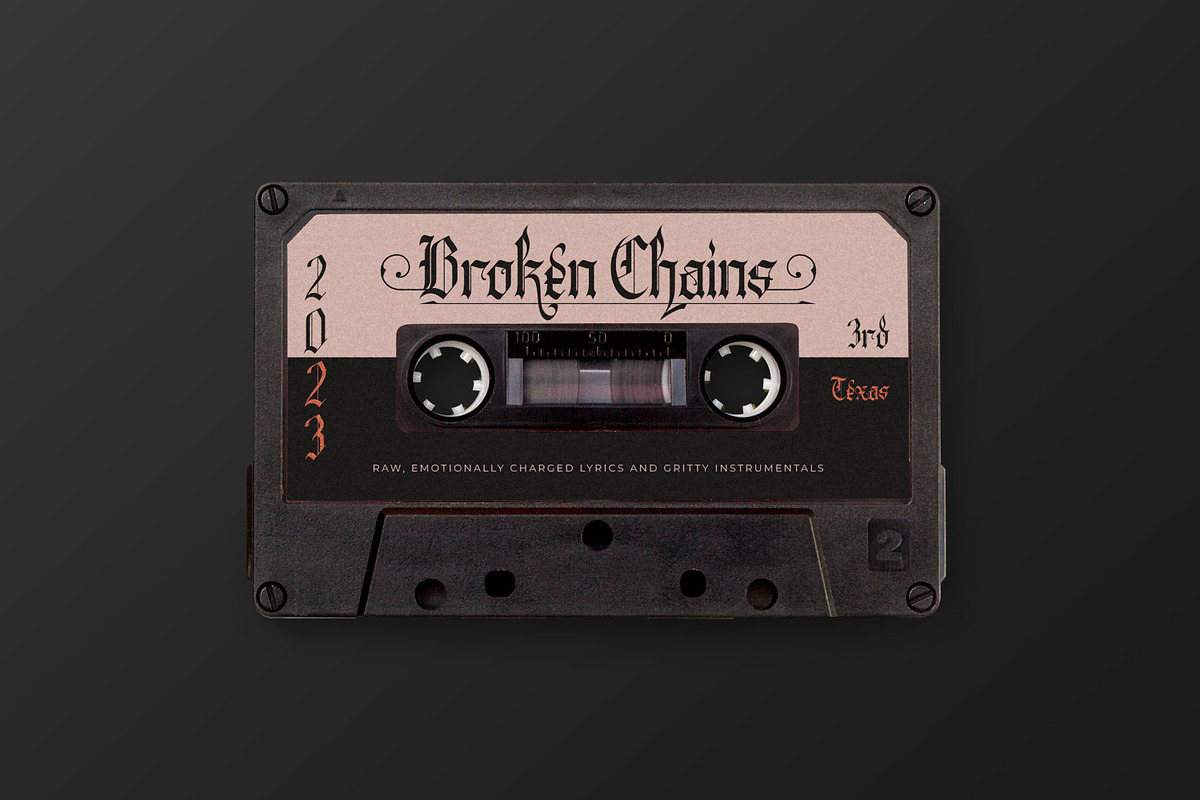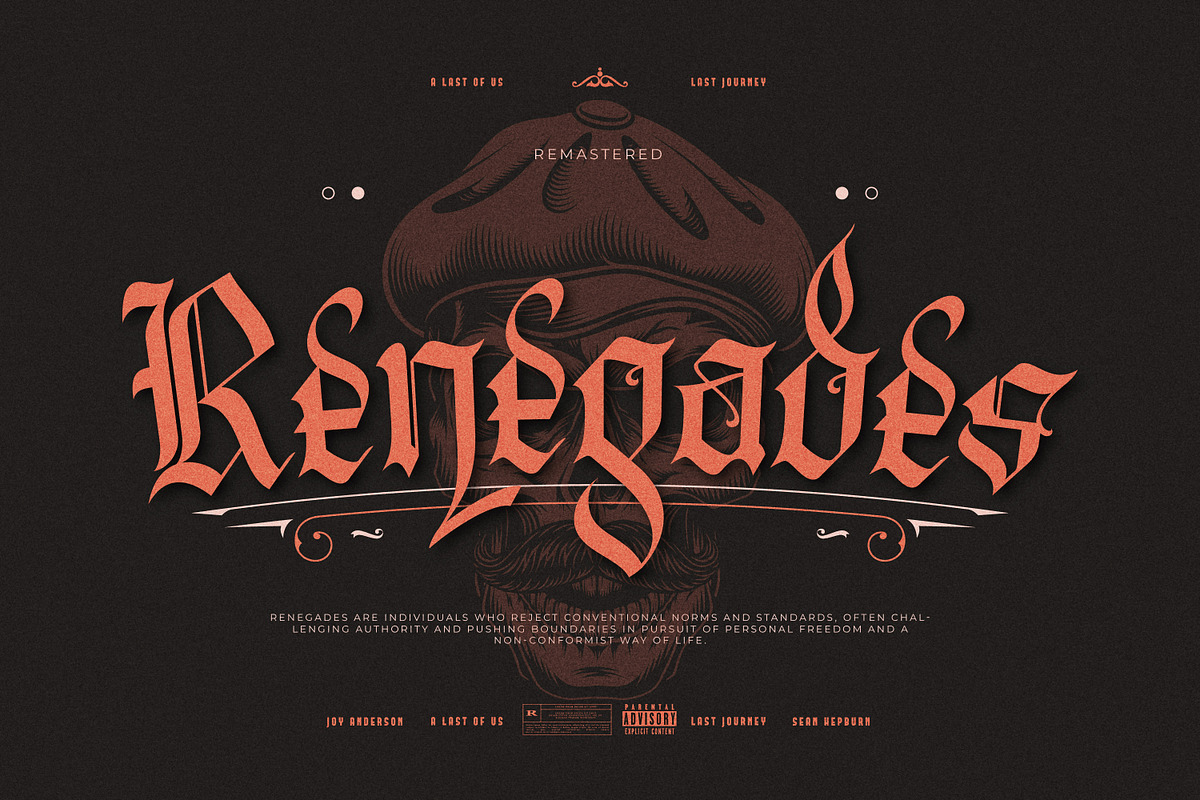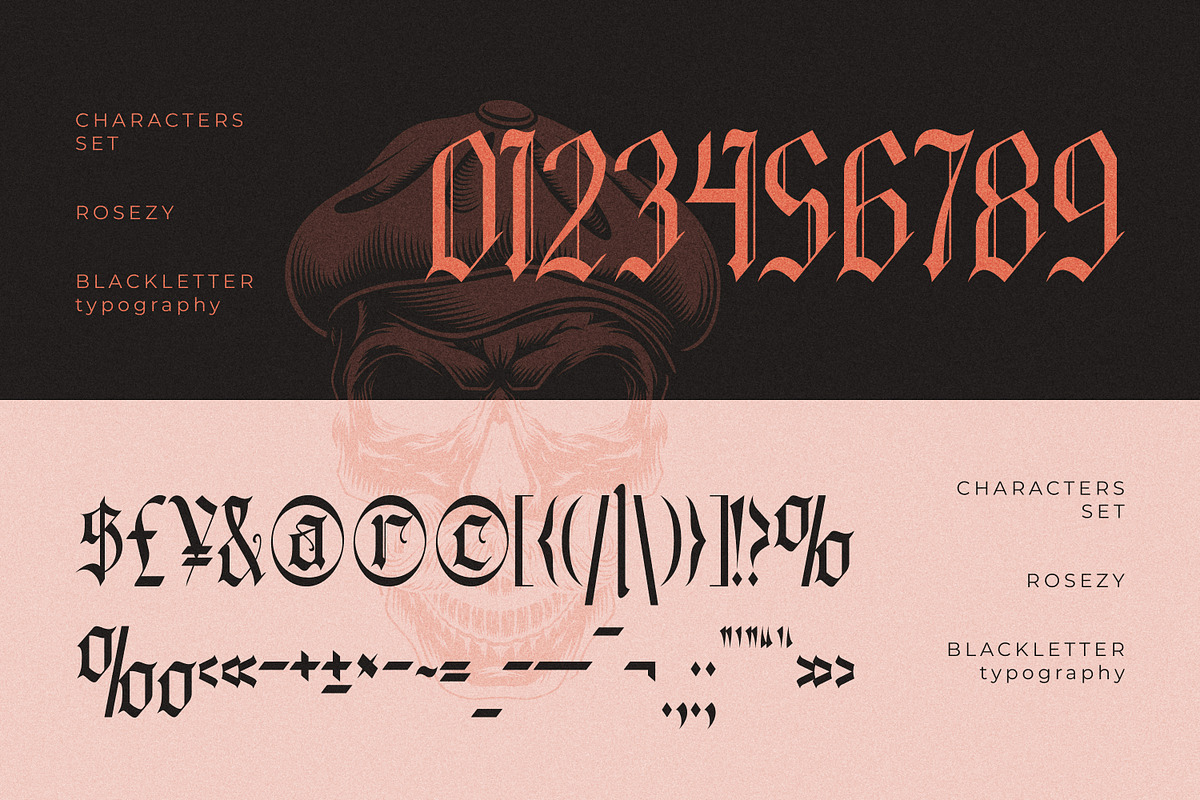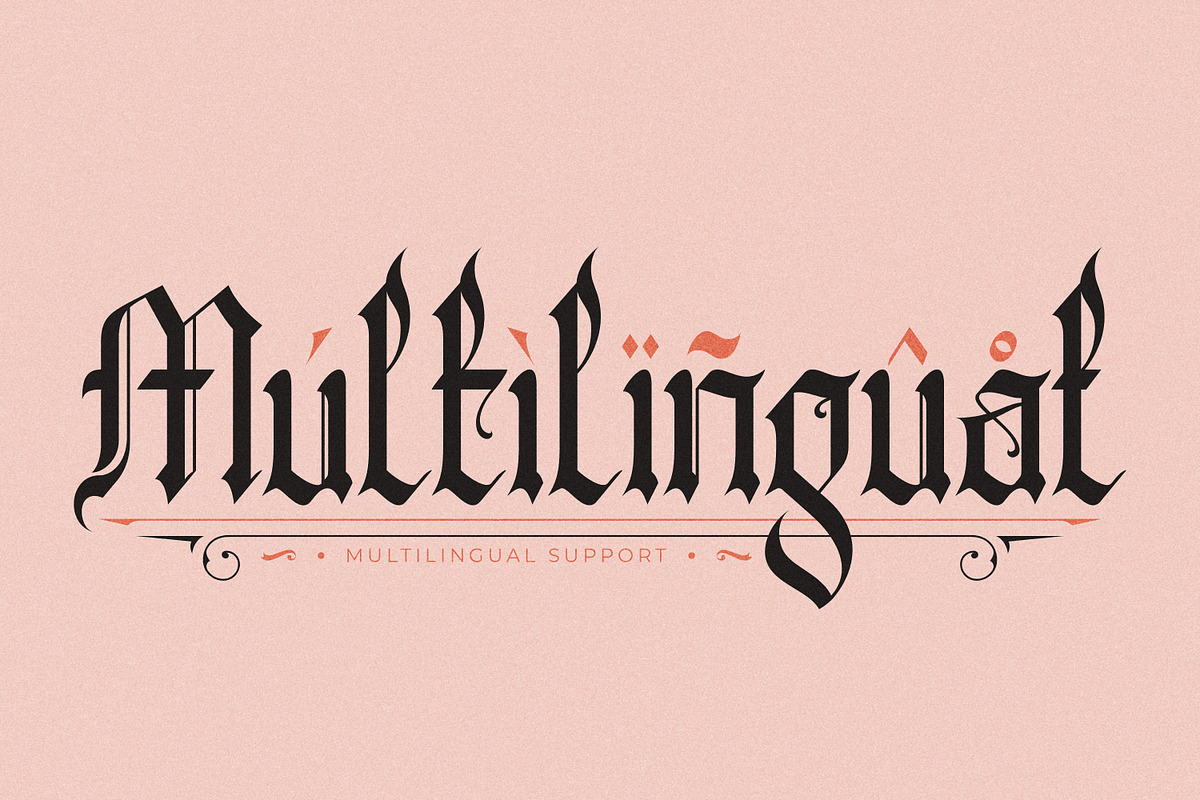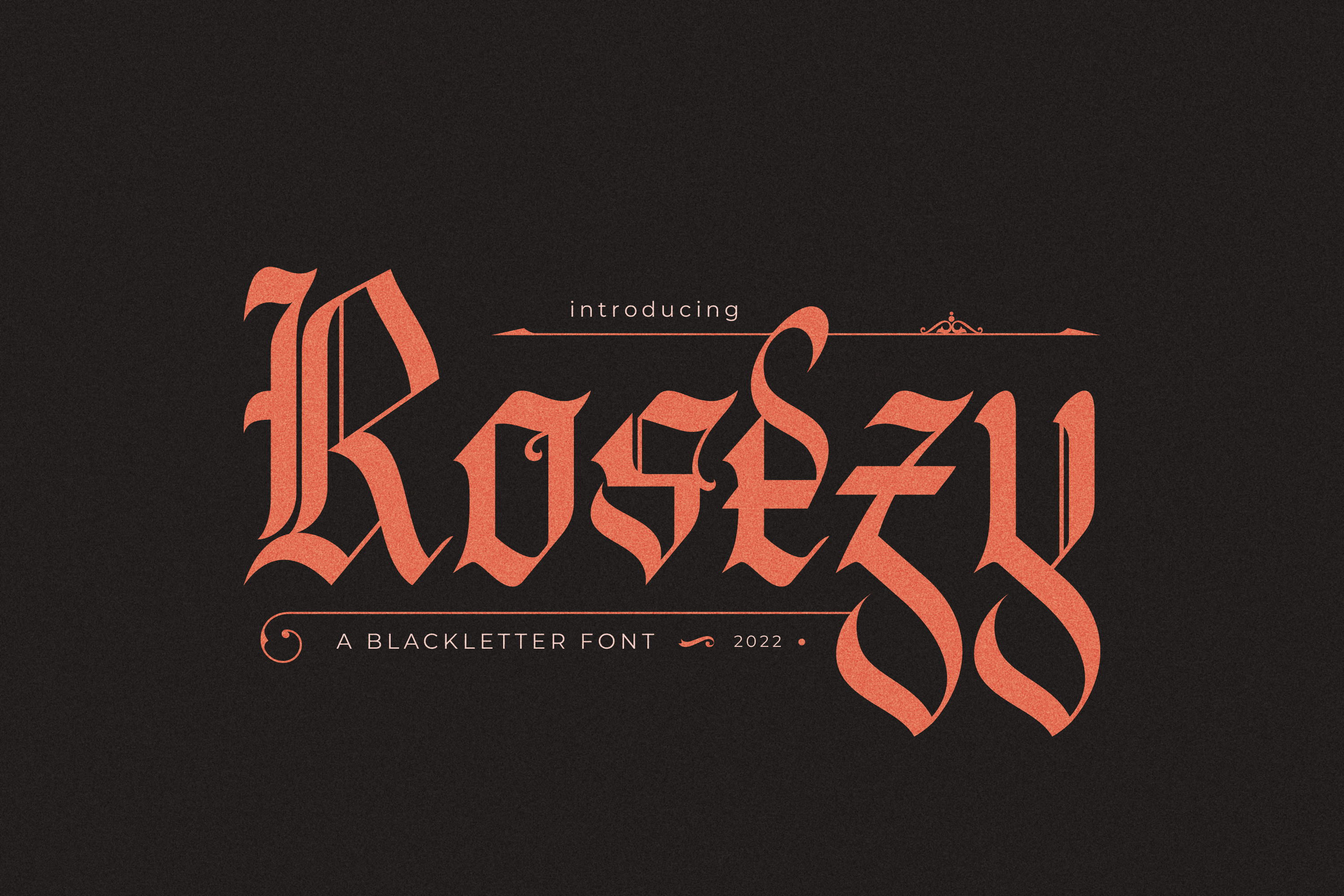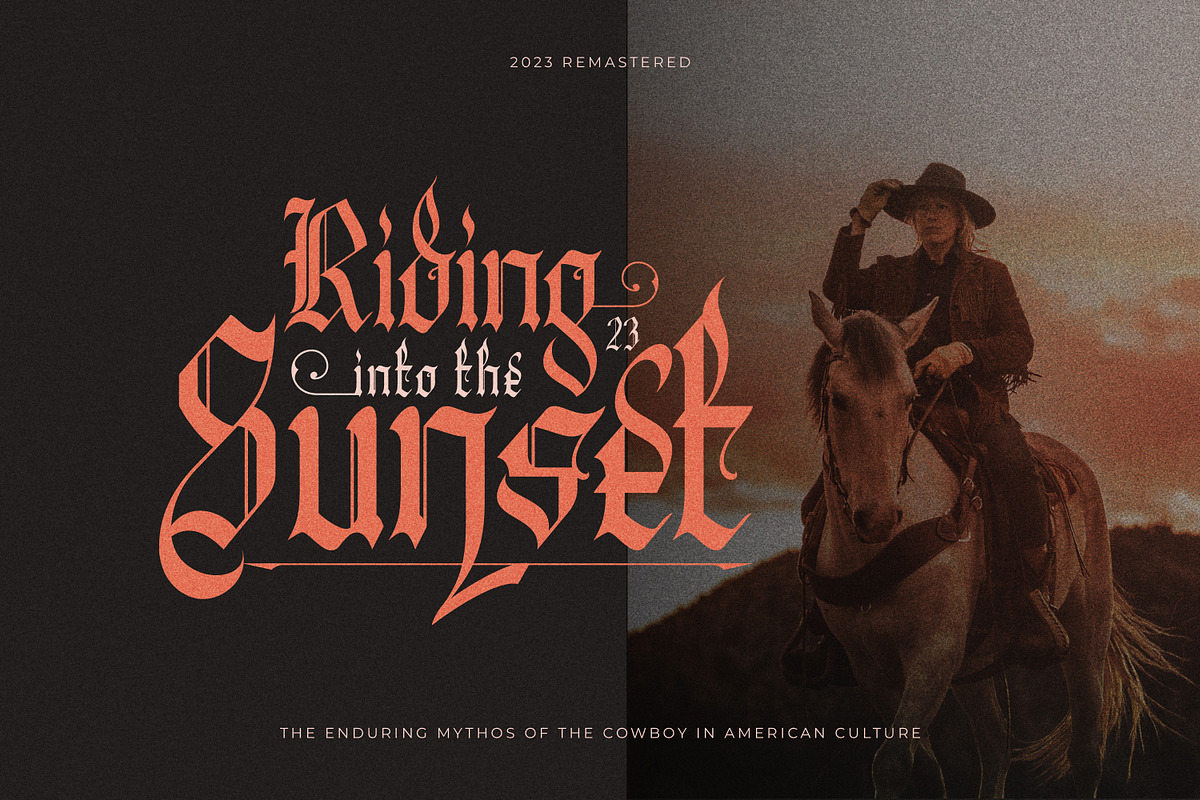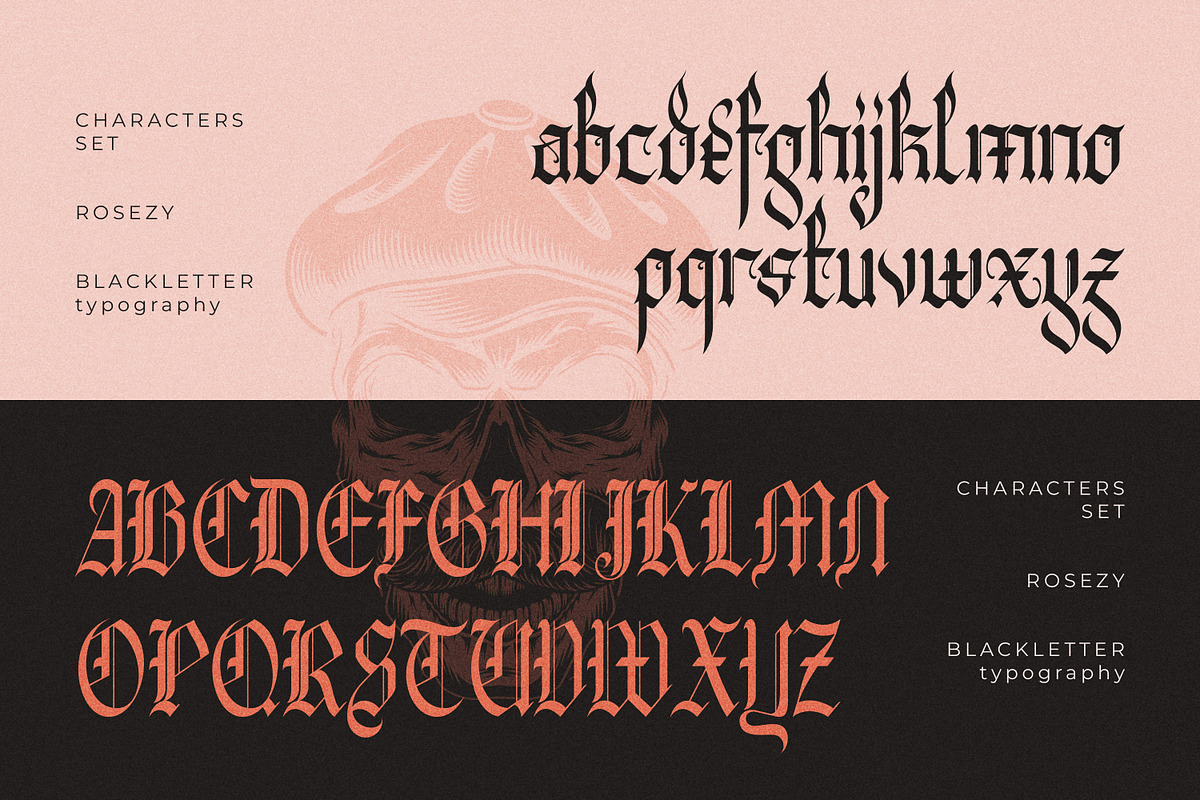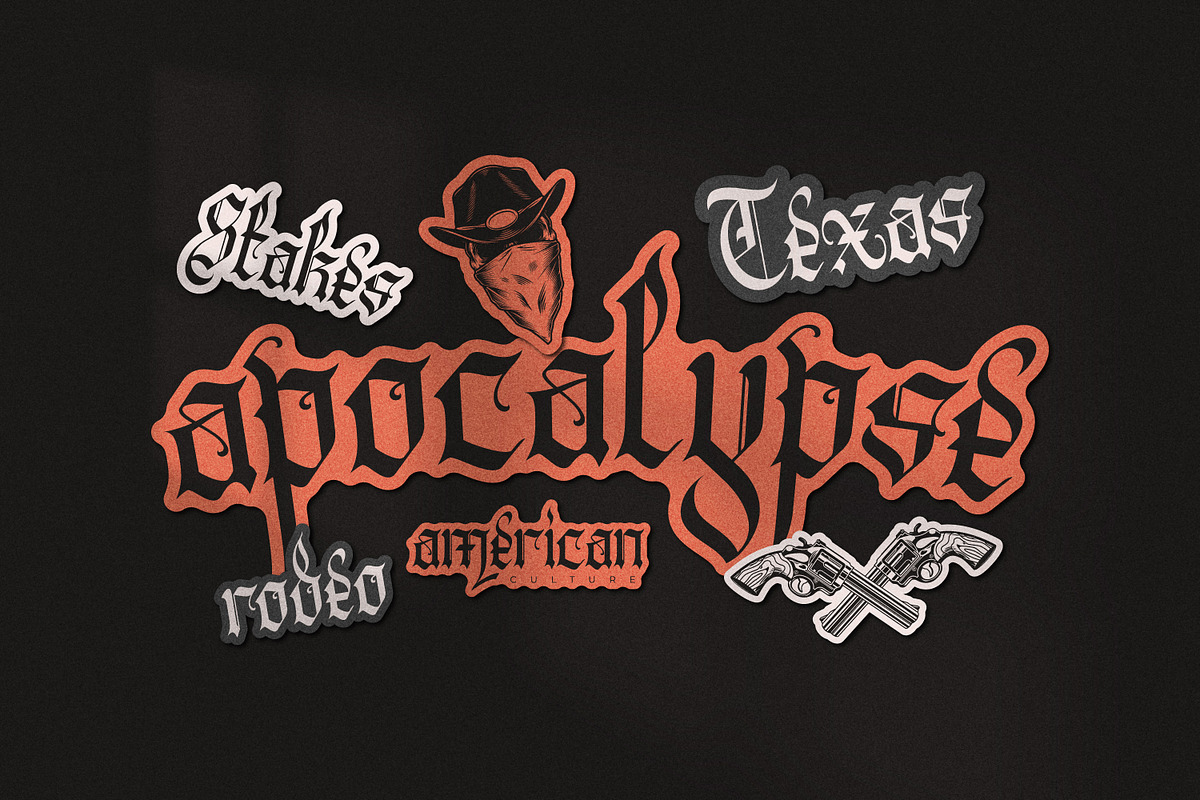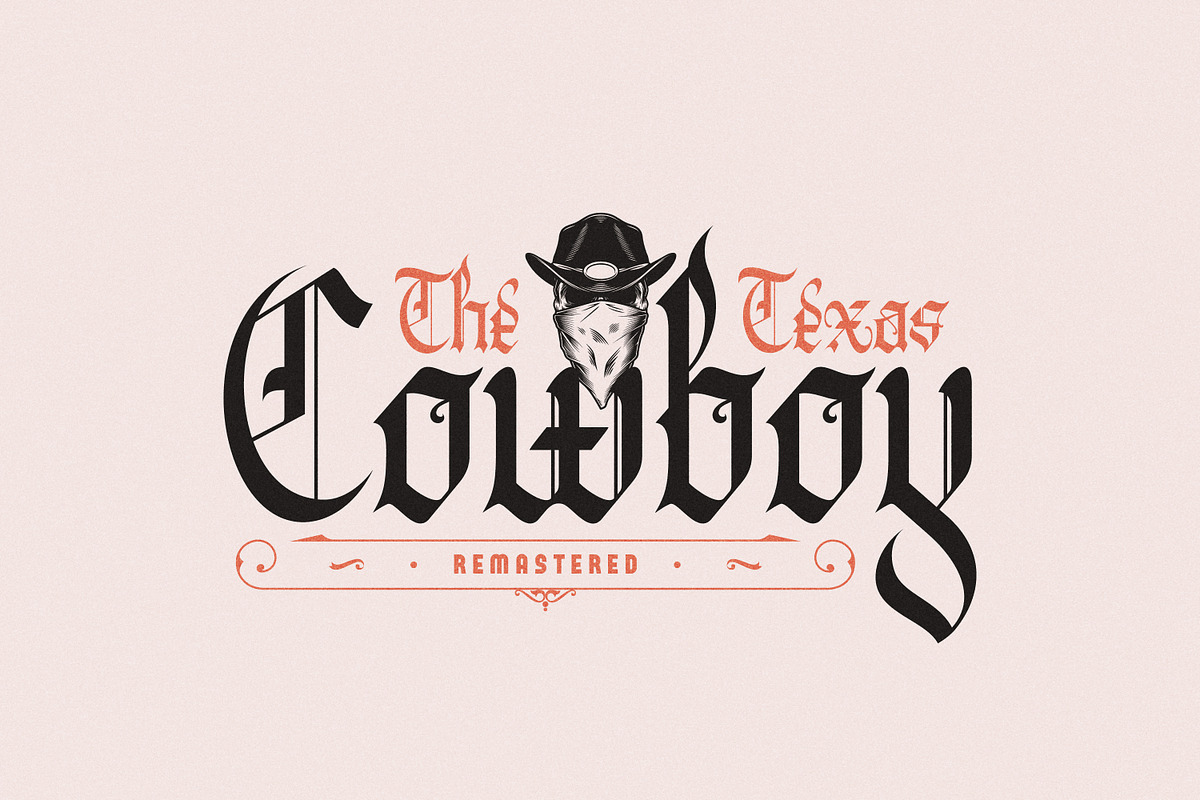
Rosezy Striking Blackletter Font
Rosezy is a striking blackletter font that exudes power and authority with its bold, intricate lines and sharp angles. Its intricate details and historical roots create a sense of grandeur and sophistication, making it the perfect choice for anything that demands attention and respect, from formal invitations to branding and logos.